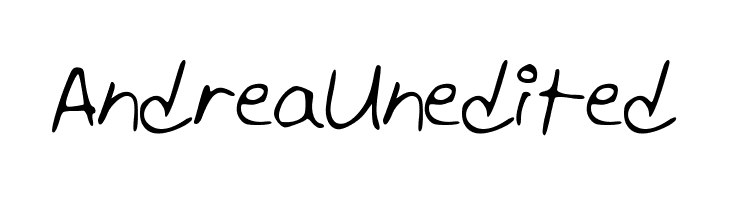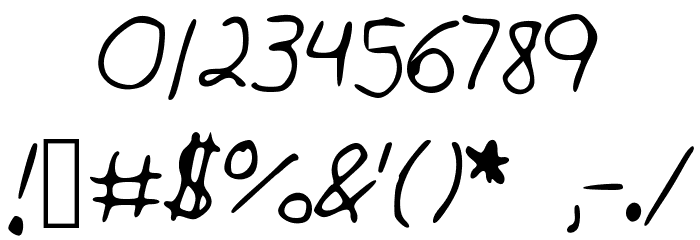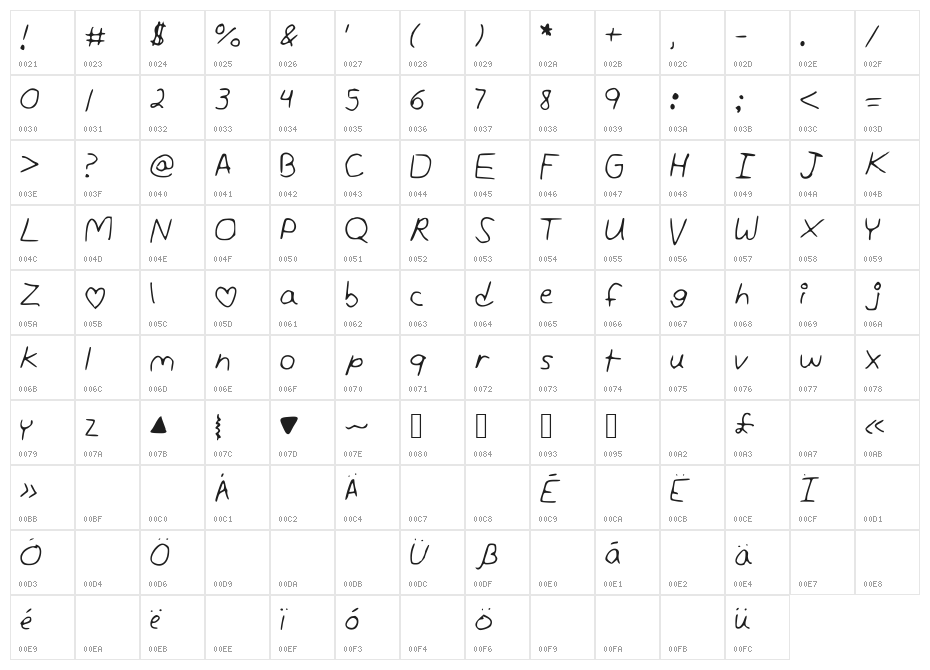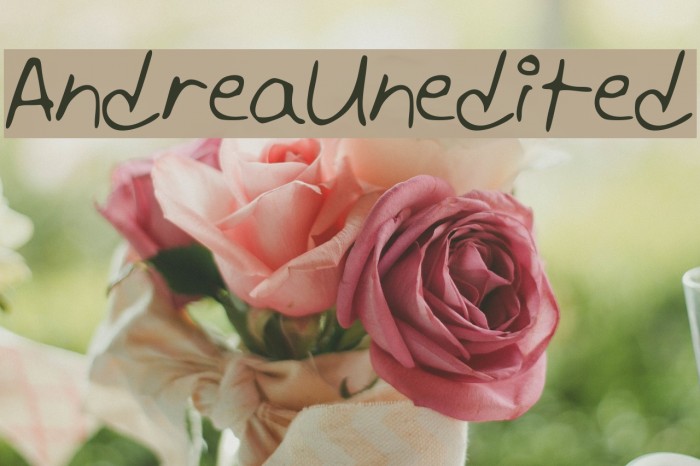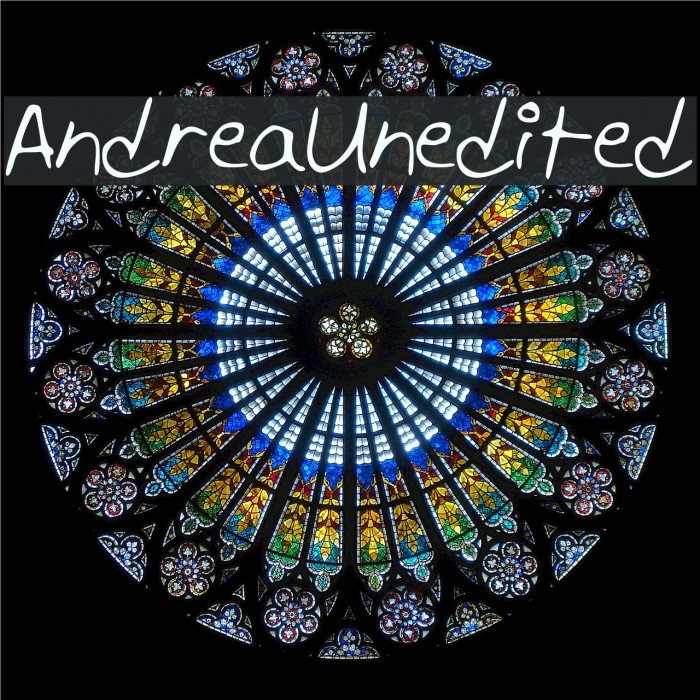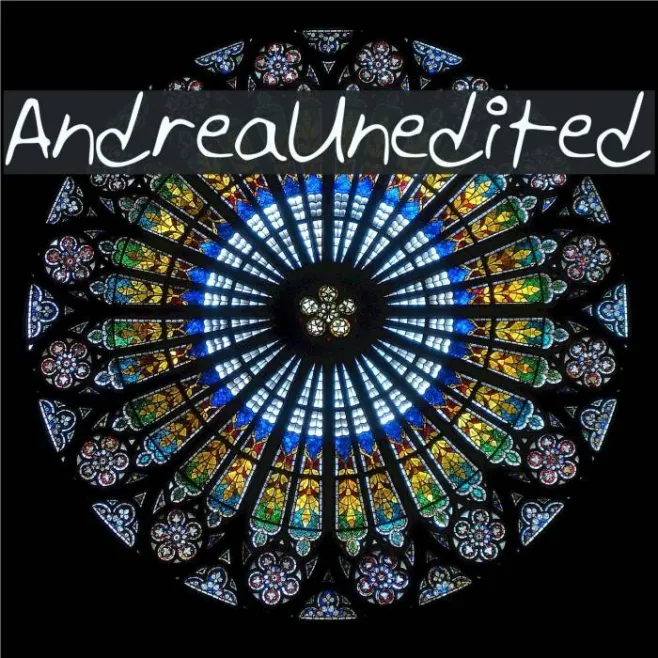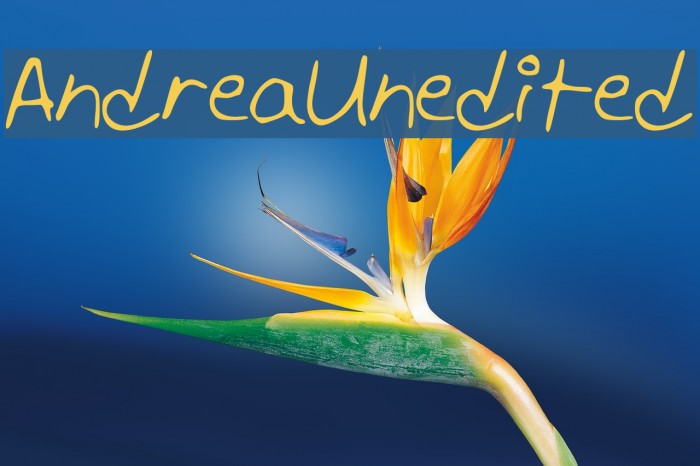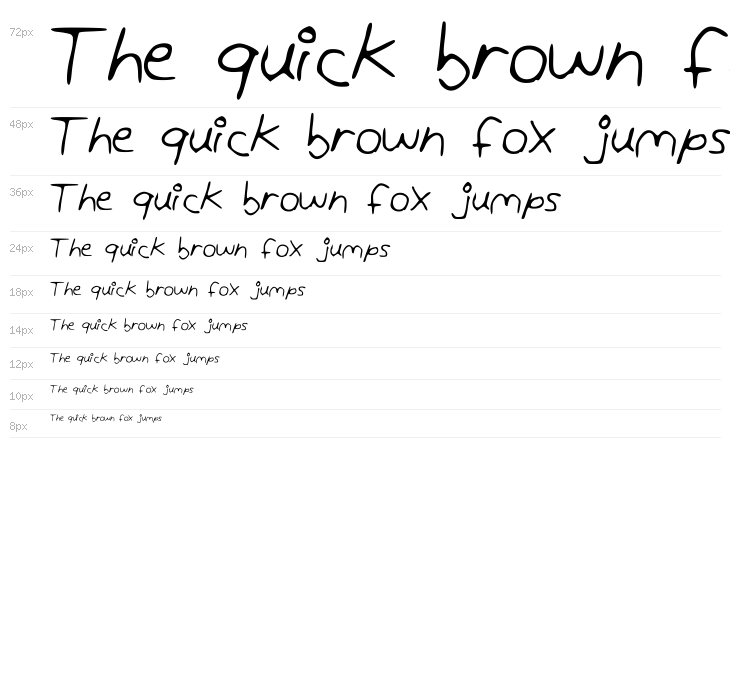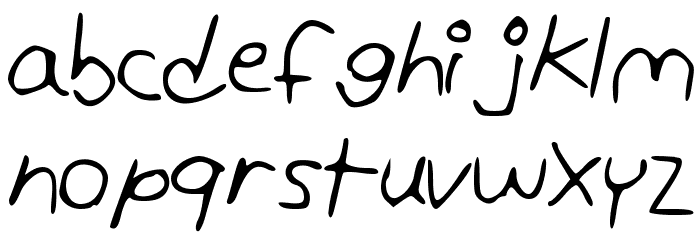
AndreaUnedited Font
AndreaUnedited Description
This font features a playful, handwritten style with a casual and informal appearance. The characters are slightly irregular, giving it a personal and human touch. Uppercase and lowercase letters are distinct, with a consistent stroke width that maintains readability. The numbers and special characters follow the same whimsical design, making it suitable for creative and informal projects. The font's overall look is approachable and friendly, ideal for conveying a sense of warmth and personality.
| Proposed Projects | Ideal for greeting cards, children's books, personal blogs, and informal branding. |